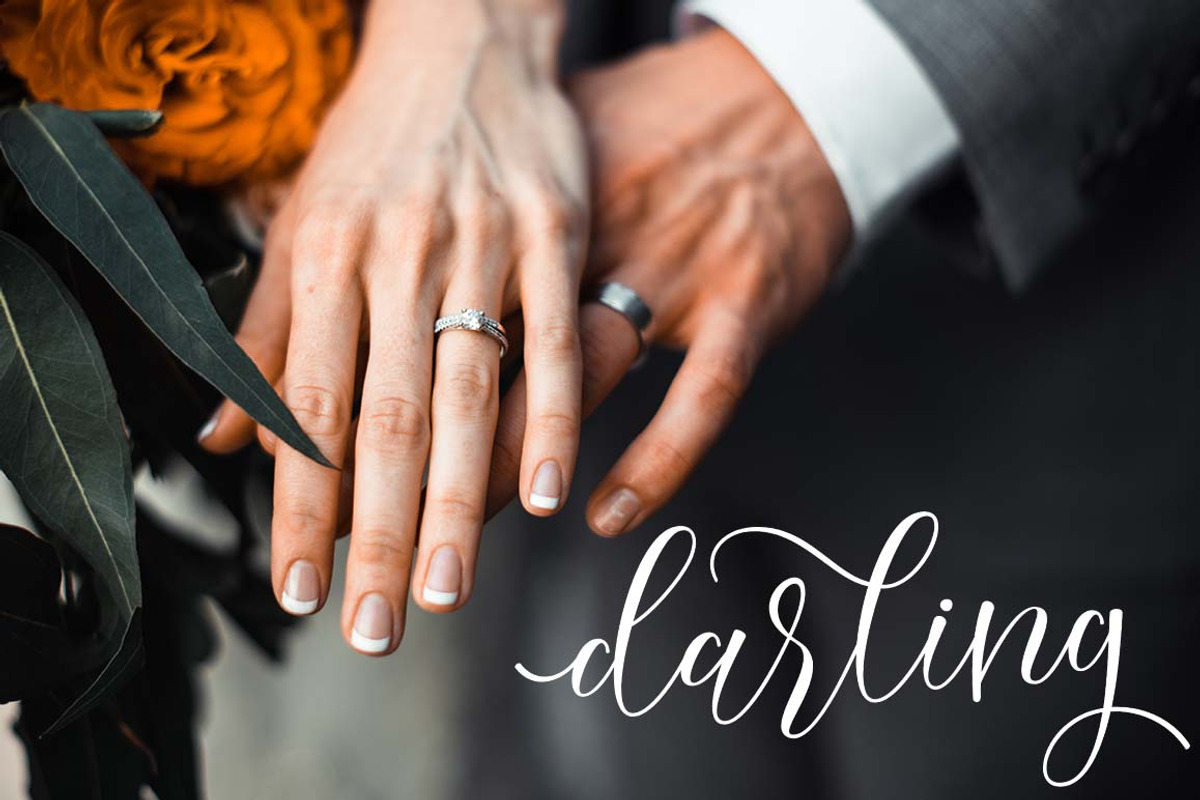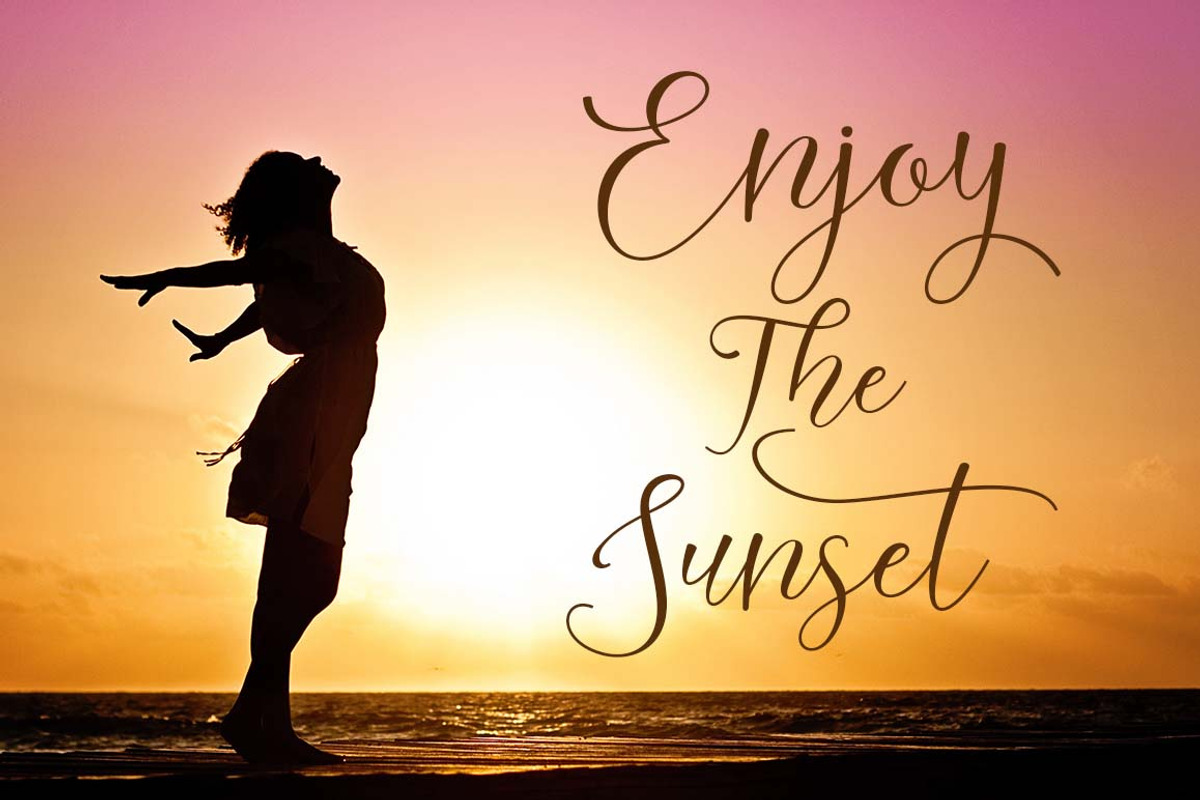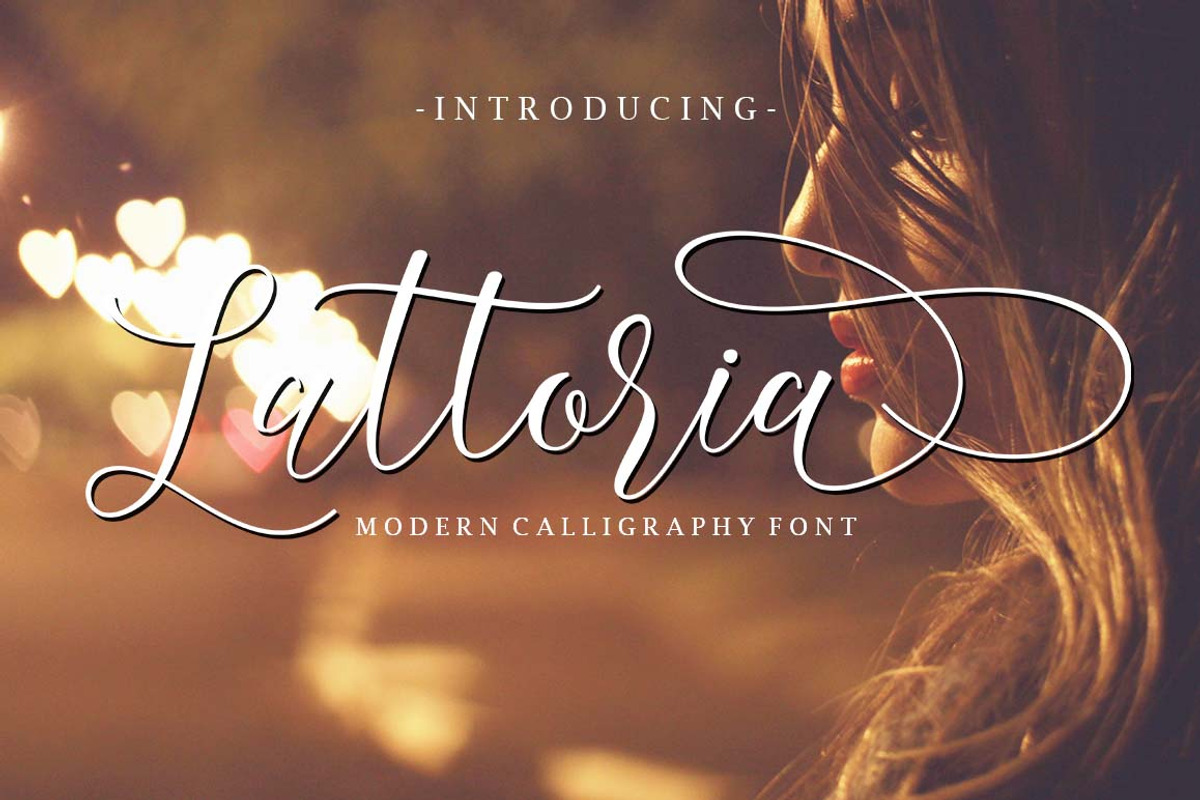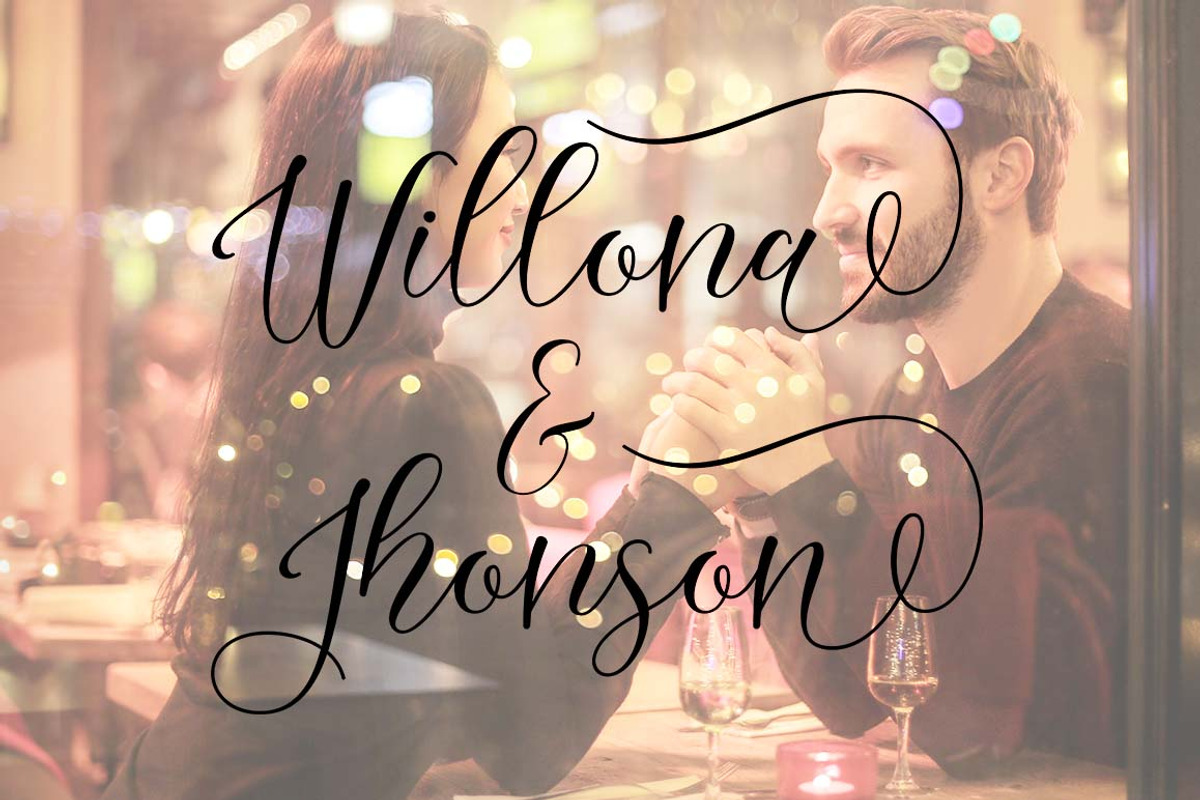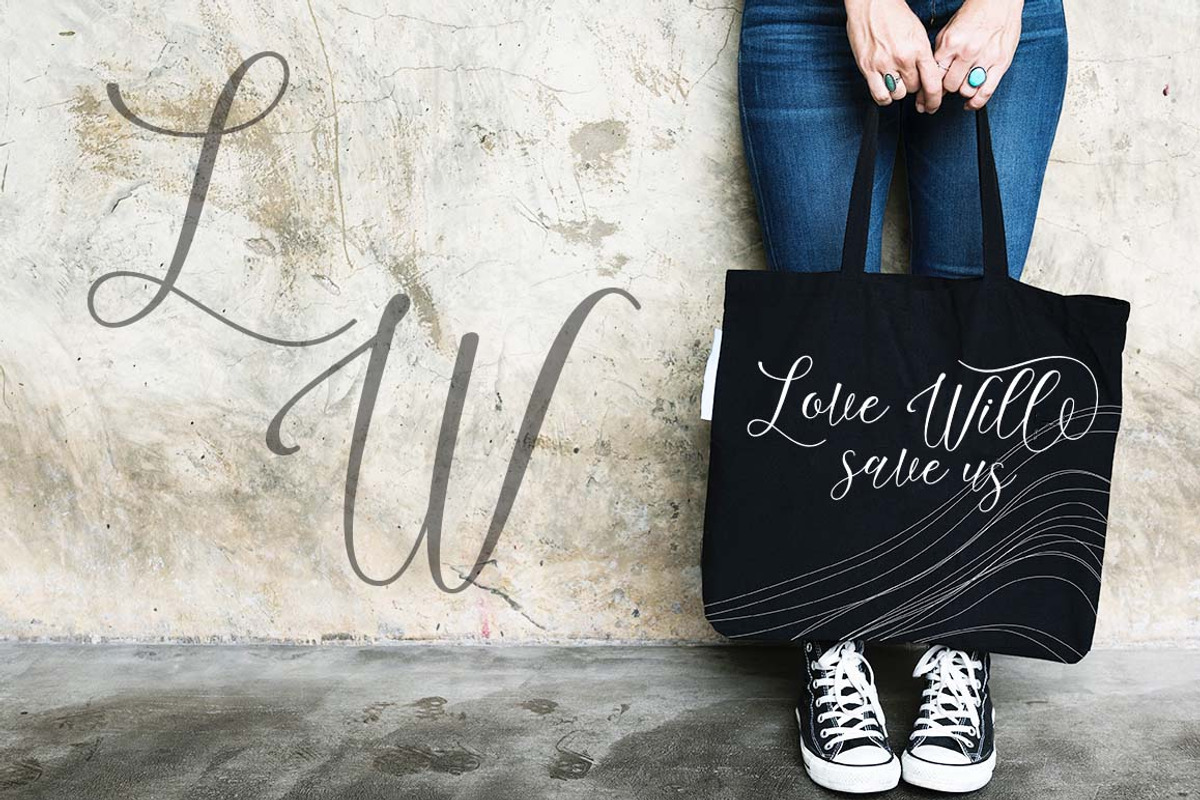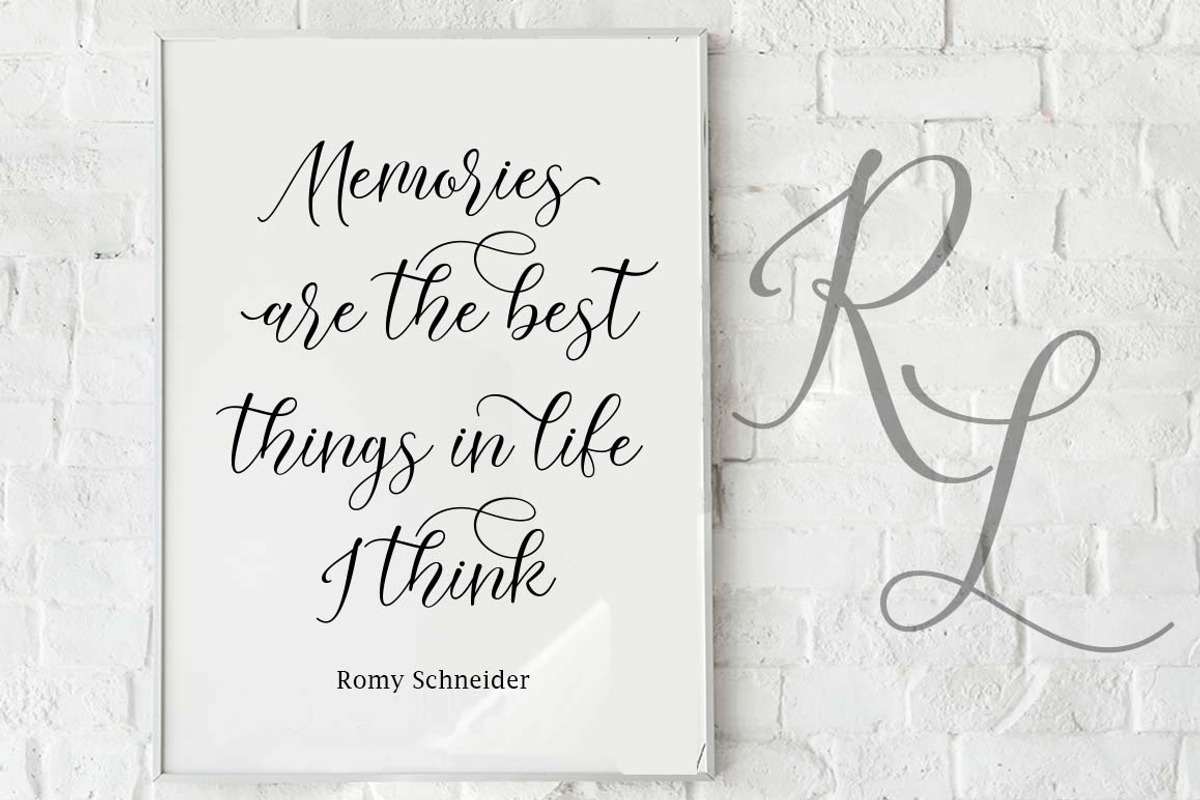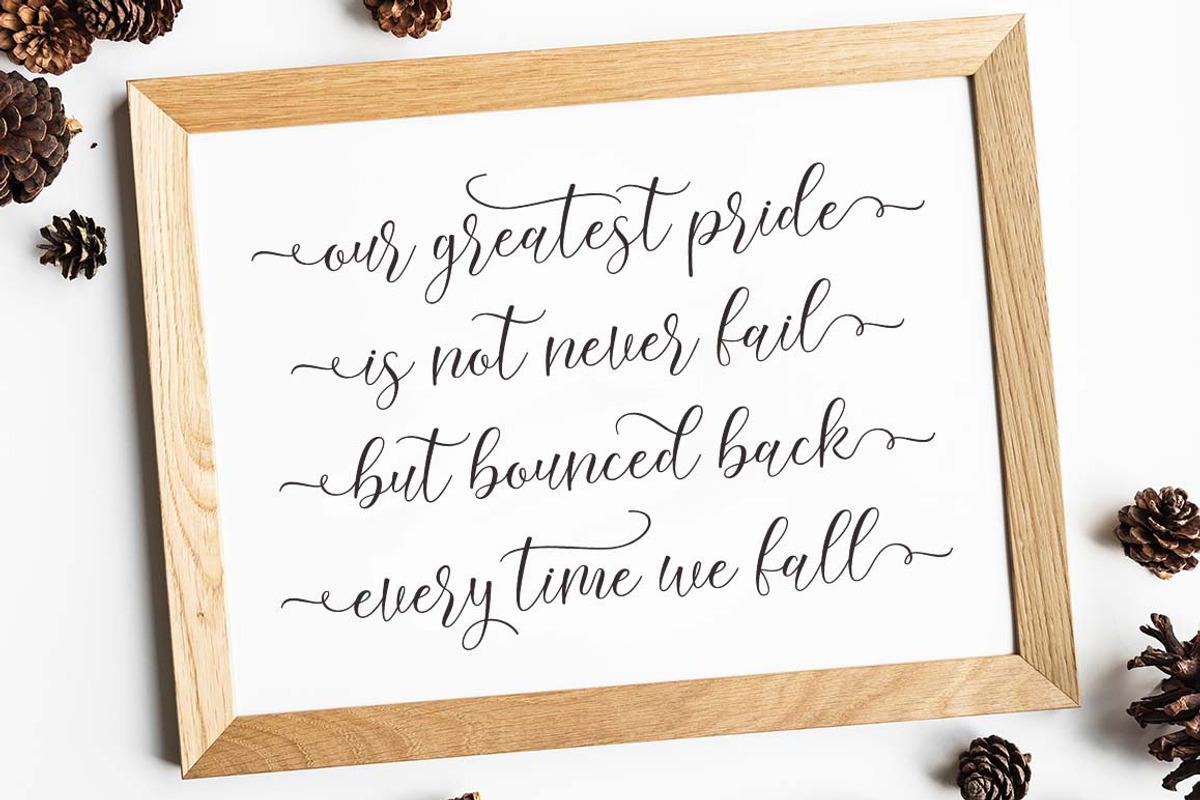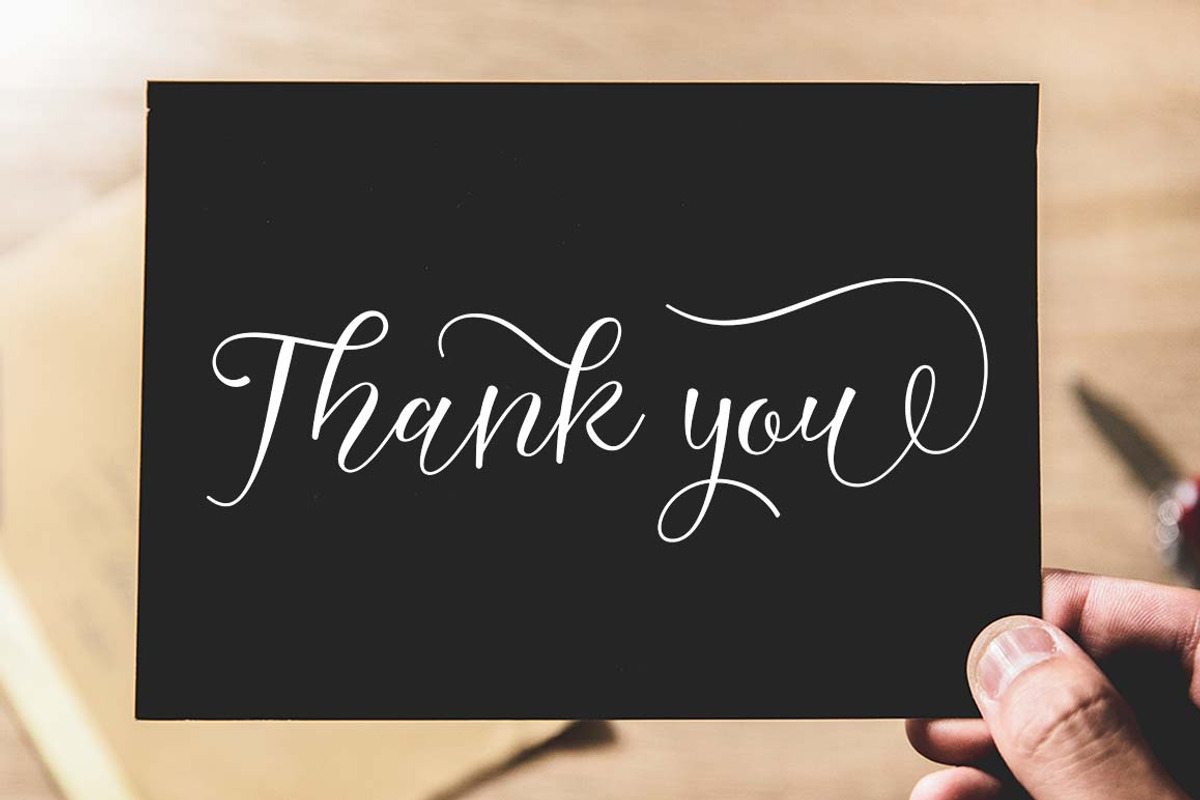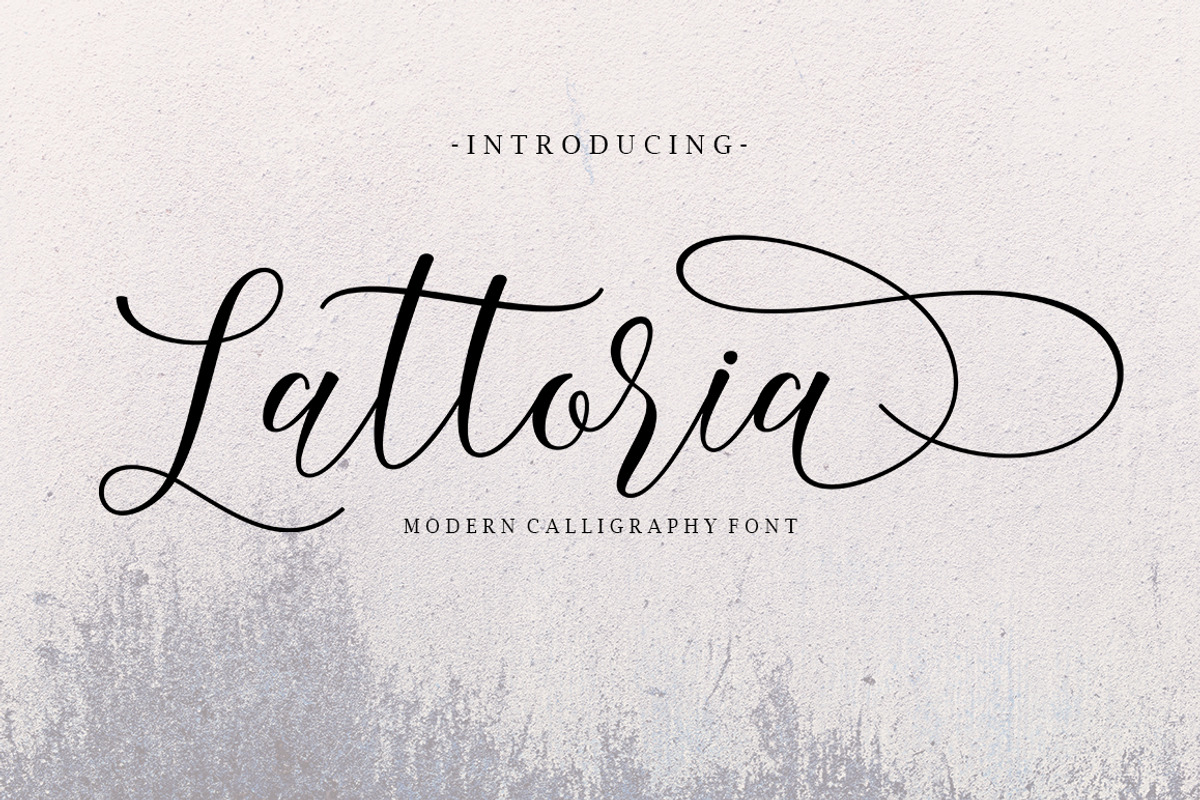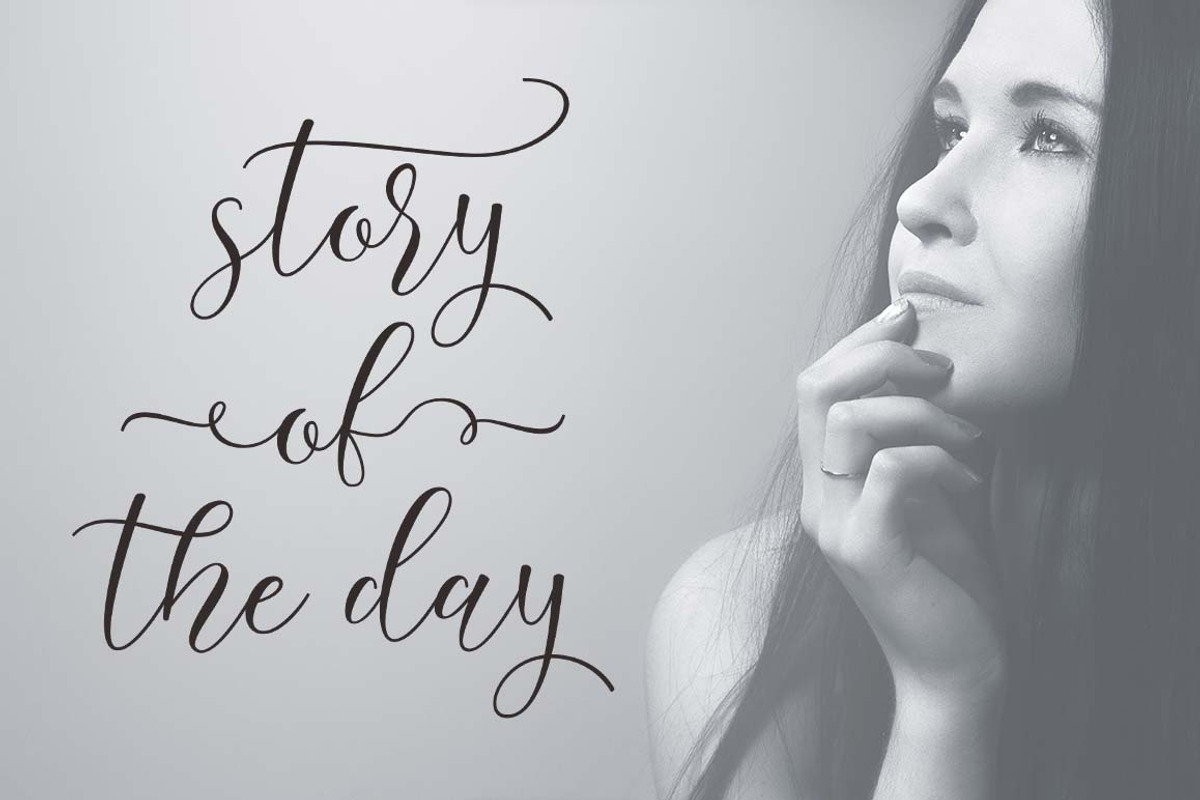
Lattoria Script
Lattoria Script - a new fresh & modern script with a handmade calligraphy style, decorative characters and a dancing baseline! So beautiful on invitation like greeting cards, branding materials, business cards, quotes, posters, and more design concept!
Unique ligatures
Stylistic sets
Basic Latin A-Z and a-z
International Symbols include
Punctuations